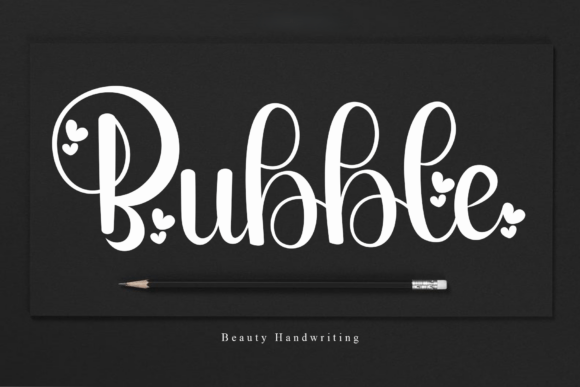
The Sweet Charm of Bubble Font: A Designer’s Delight
I still remember the time I was working on a whimsical craft project, pouring my heart into creating the perfect design. But, as I scrolled through my font library, I just couldn’t find the right fit. That’s when I stumbled upon Bubble Font, and it instantly became my go-to. Its sweet, friendly vibe perfectly captured the playful essence of my project. If you’re a designer, crafter, or creative hobbyist looking for a font that can add a touch of warmth and personality to your work, you’re in the right place!
An Honest Review of Bubble Font
- ✨ Unique and Playful Style: Bubble Font boasts a natural, handwritten look that’s incredibly versatile. Whether you’re designing a logo, crafting a greeting card, or creating a social media graphic, this font fits right in.
- ✅ Ease of Use: This font is a breeze to work with, even for those who aren’t super tech-savvy. Its clean lines and clear letterforms make it easy to read and pair with other fonts.
- 💕 Emotional Connection: Bubble Font has a way of making your designs feel more approachable and friendly. It’s perfect for projects where you want to convey warmth and personality.
While Bubble Font is amazing, there are a few things to keep in mind:
- ⚠️ Legibility at Small Sizes: Like many handwritten fonts, Bubble can get a bit fuzzy at very small sizes. It’s best used at larger sizes where its charm can shine.
- 🤔 Pairing with Other Fonts: While Bubble Font is versatile, it can be a bit tricky to pair with other fonts. Look for fonts with a similar playful or handwritten feel for the best results.
The Story Behind Bubble Font
Bubble Font was created with the intention of capturing the whimsical and friendly feel of handwritten text. Its designer aimed to create a font that felt both approachable and unique, perfect for a wide range of creative projects. While the exact backstory might be fictional, the impact of Bubble Font on designers and crafters is very real.
Q: How does Bubble Font compare to other script fonts?
A: Bubble Font stands out for its friendly, approachable vibe. While other script fonts might offer more elegance or sophistication, Bubble Font brings a playful charm that’s hard to match.